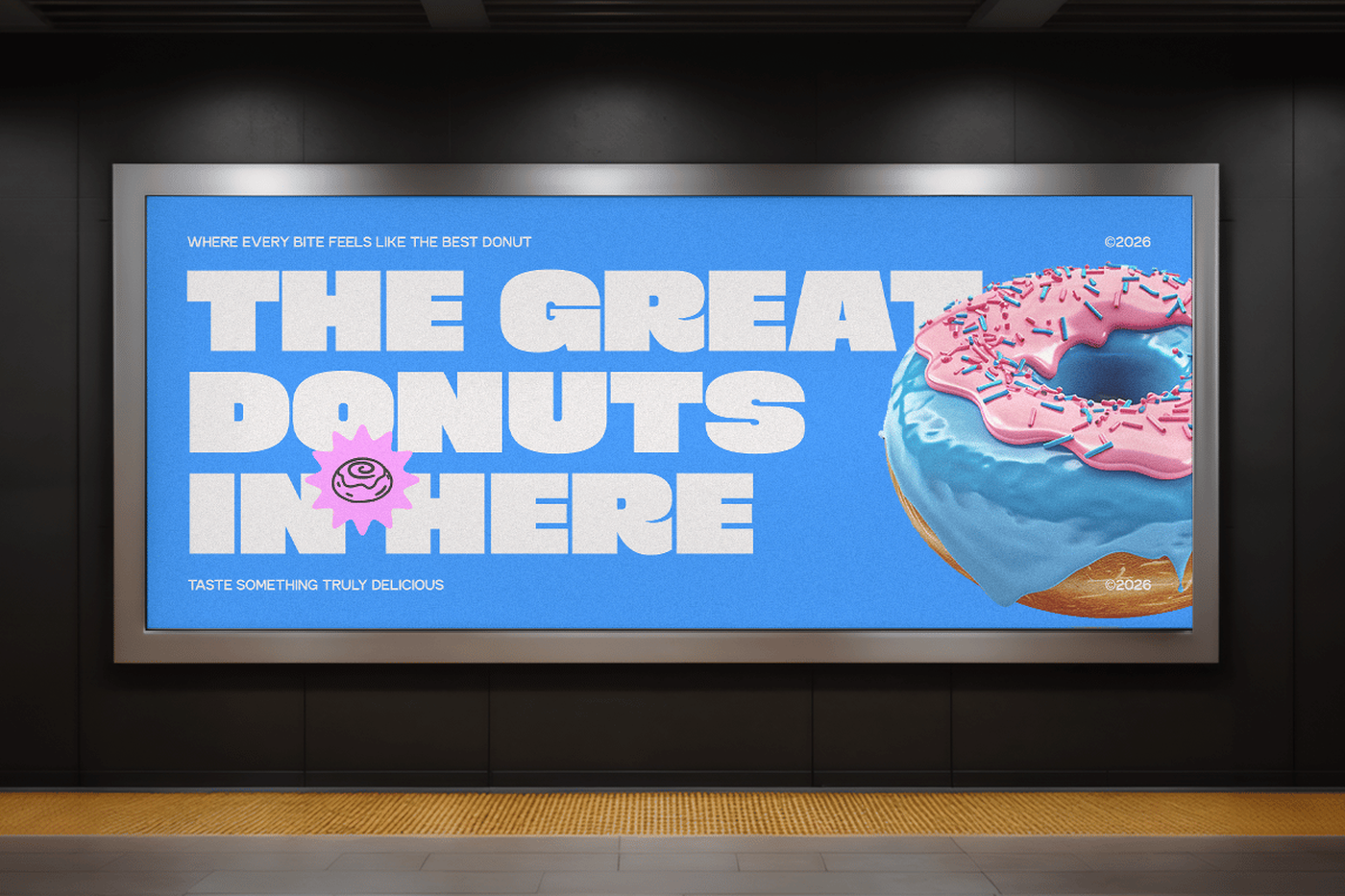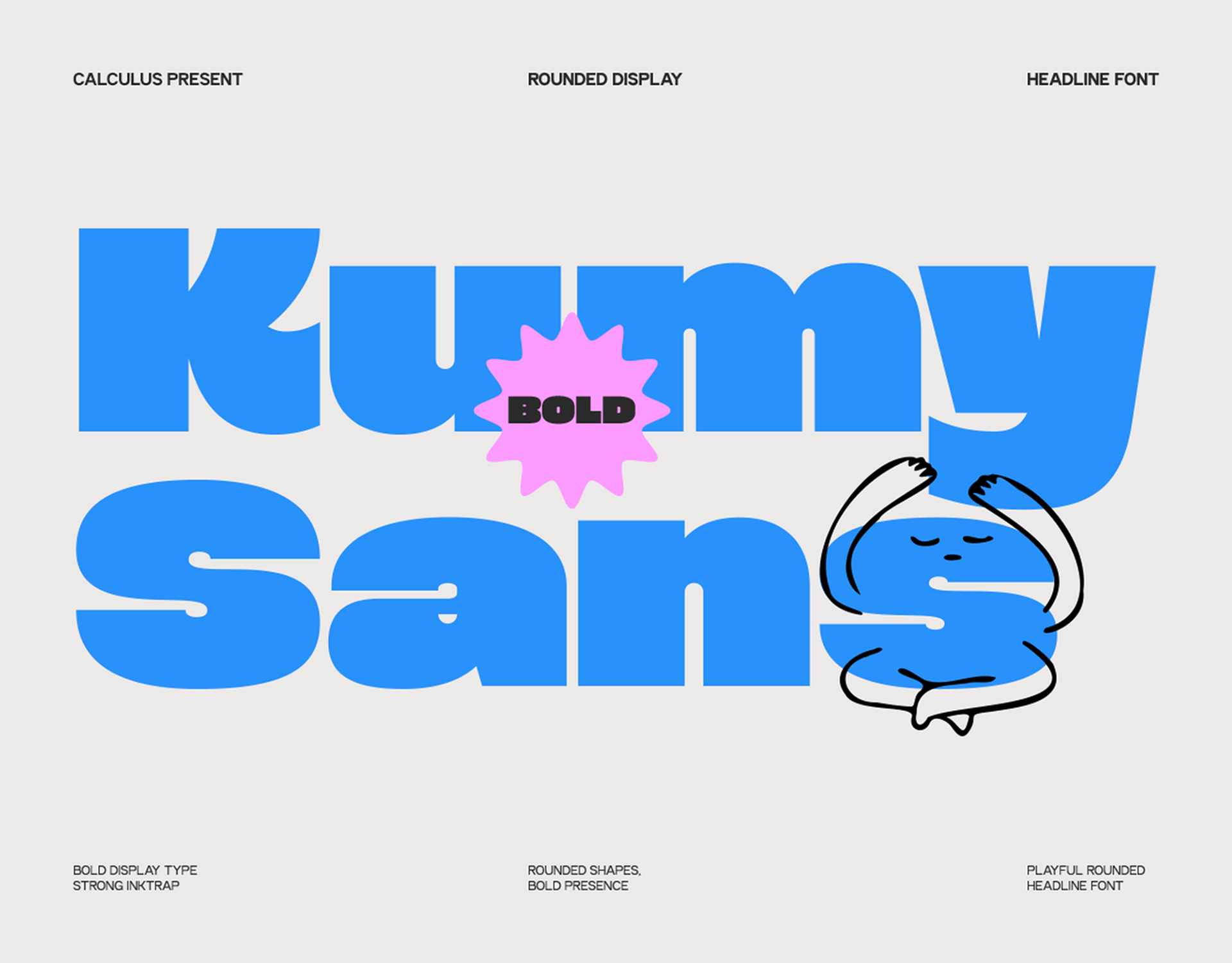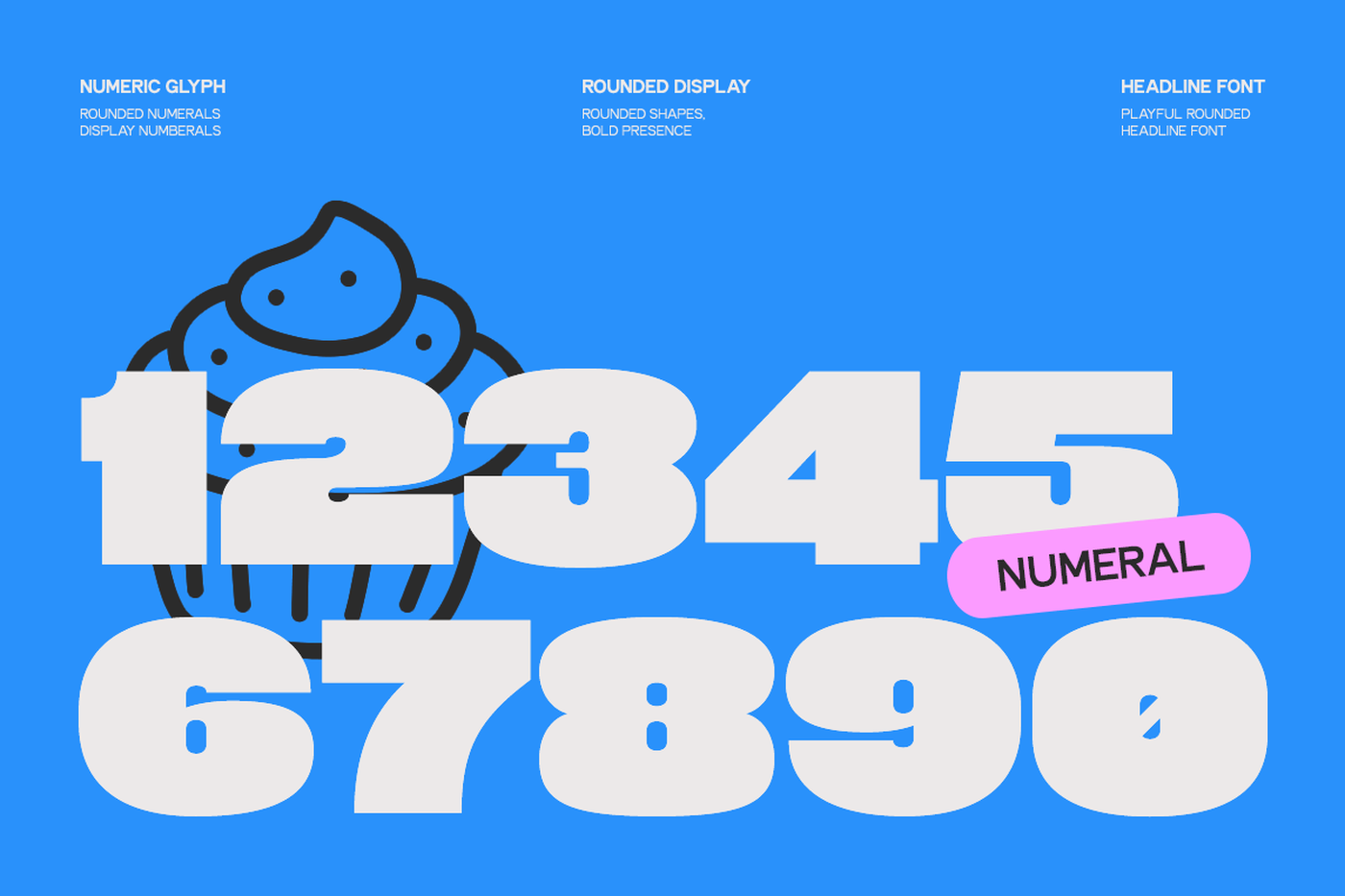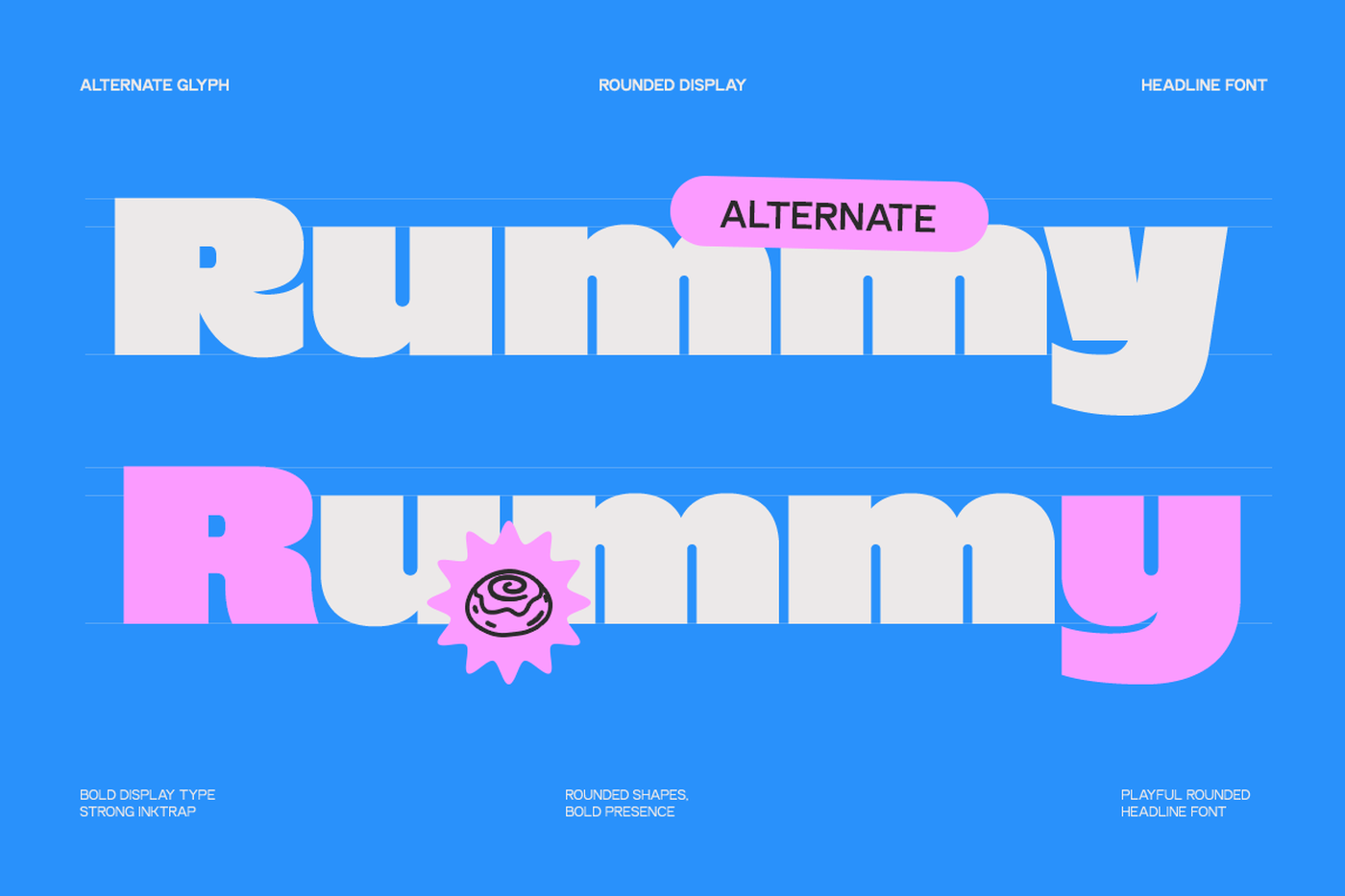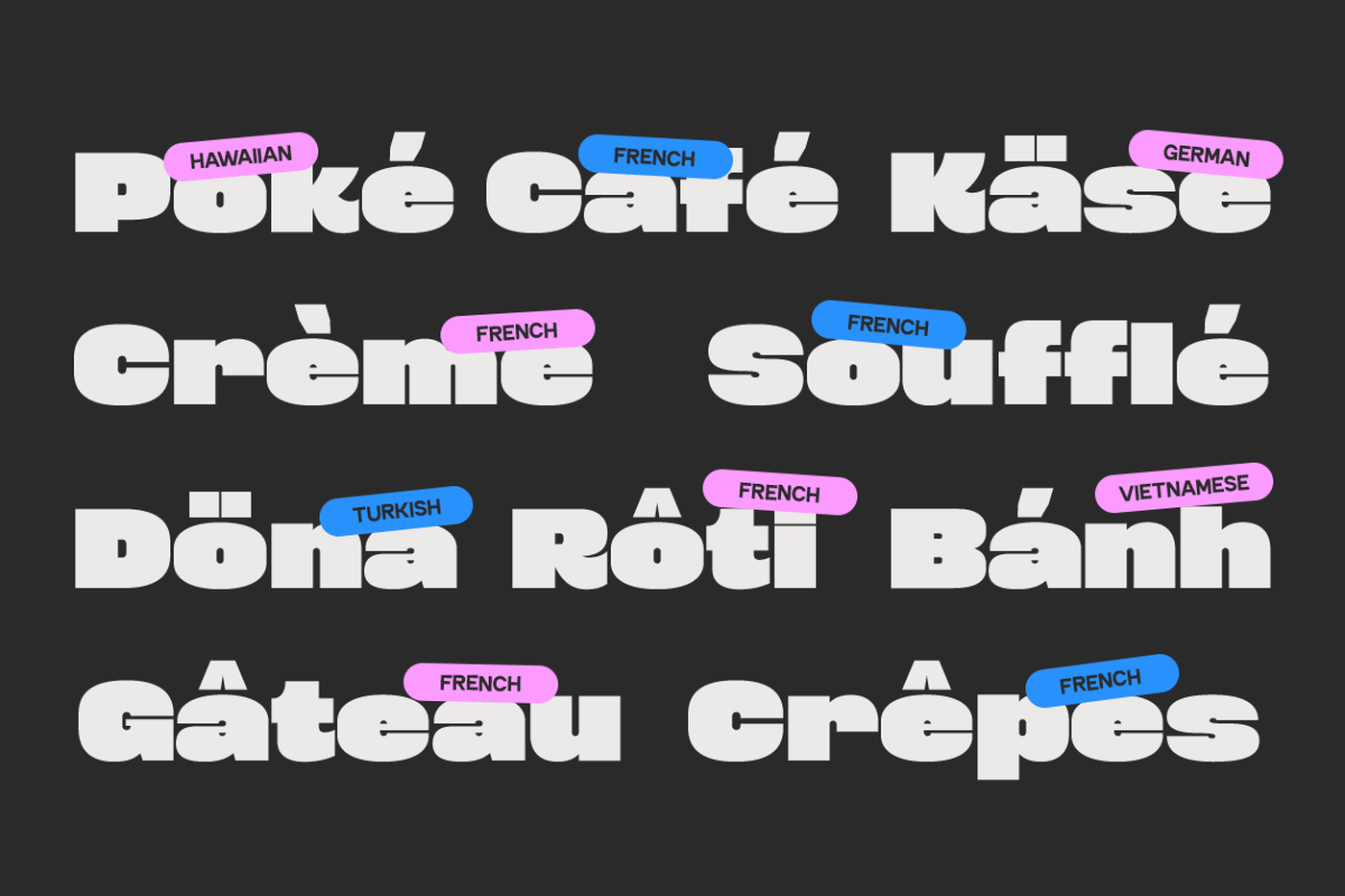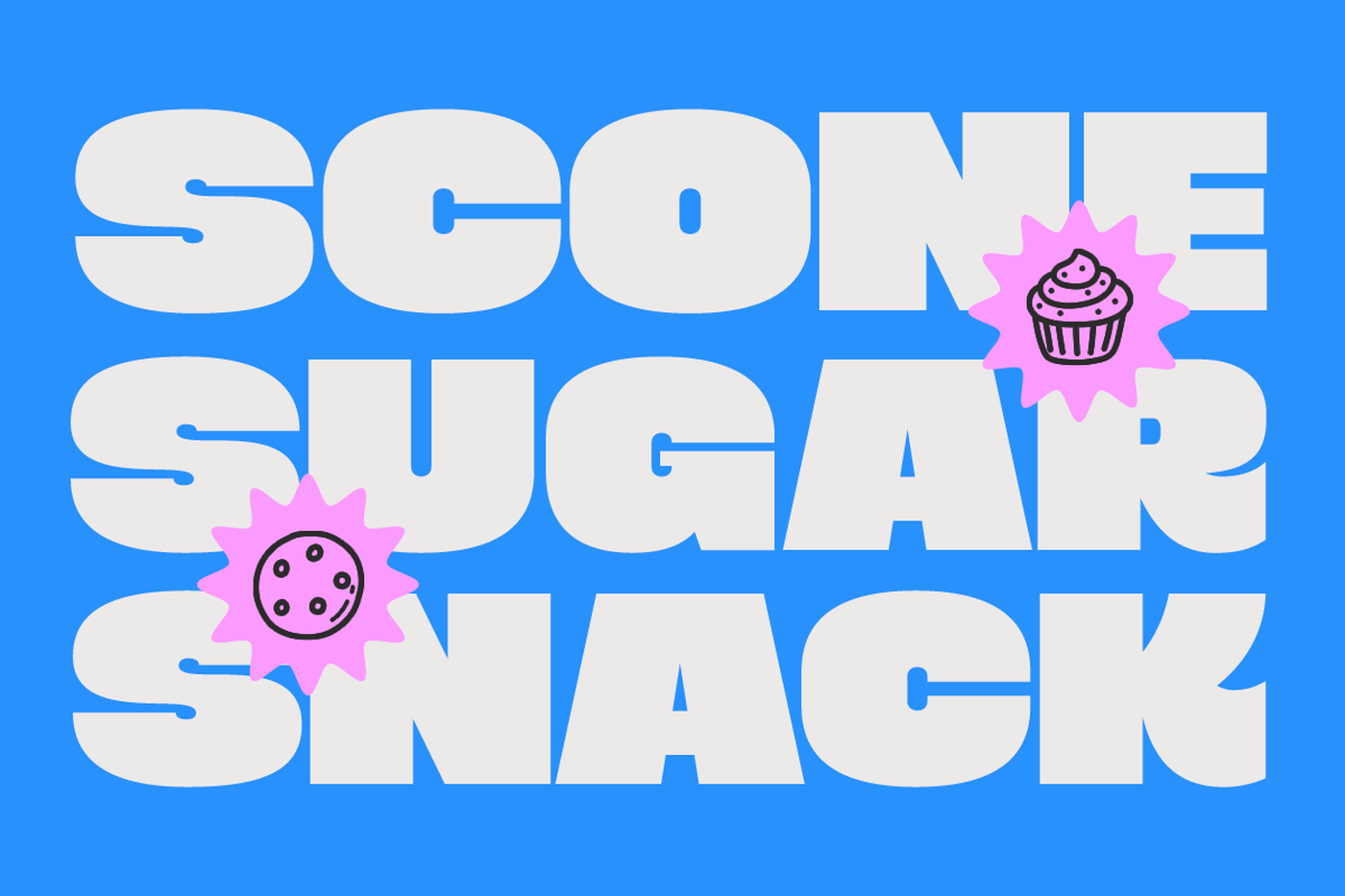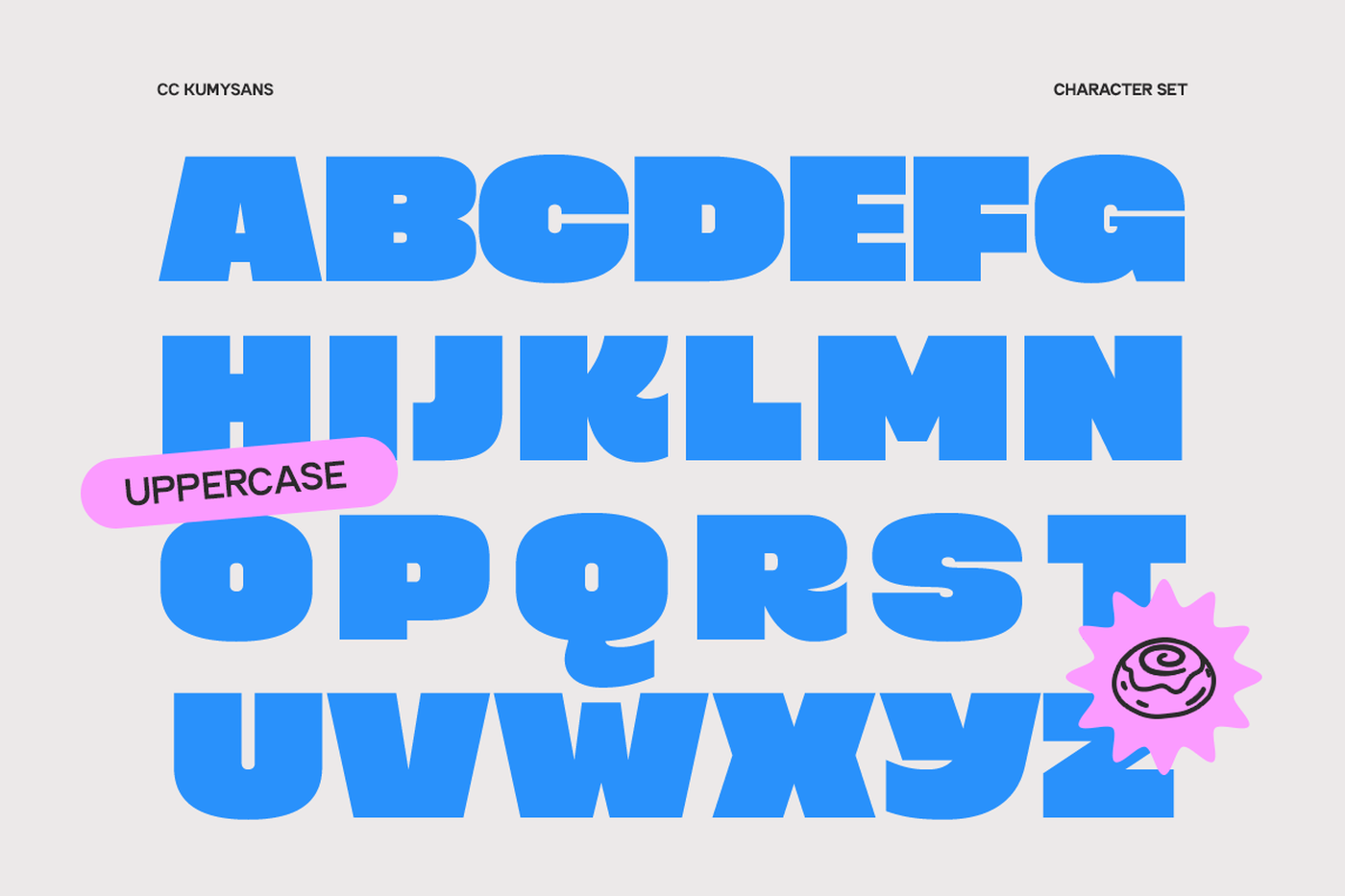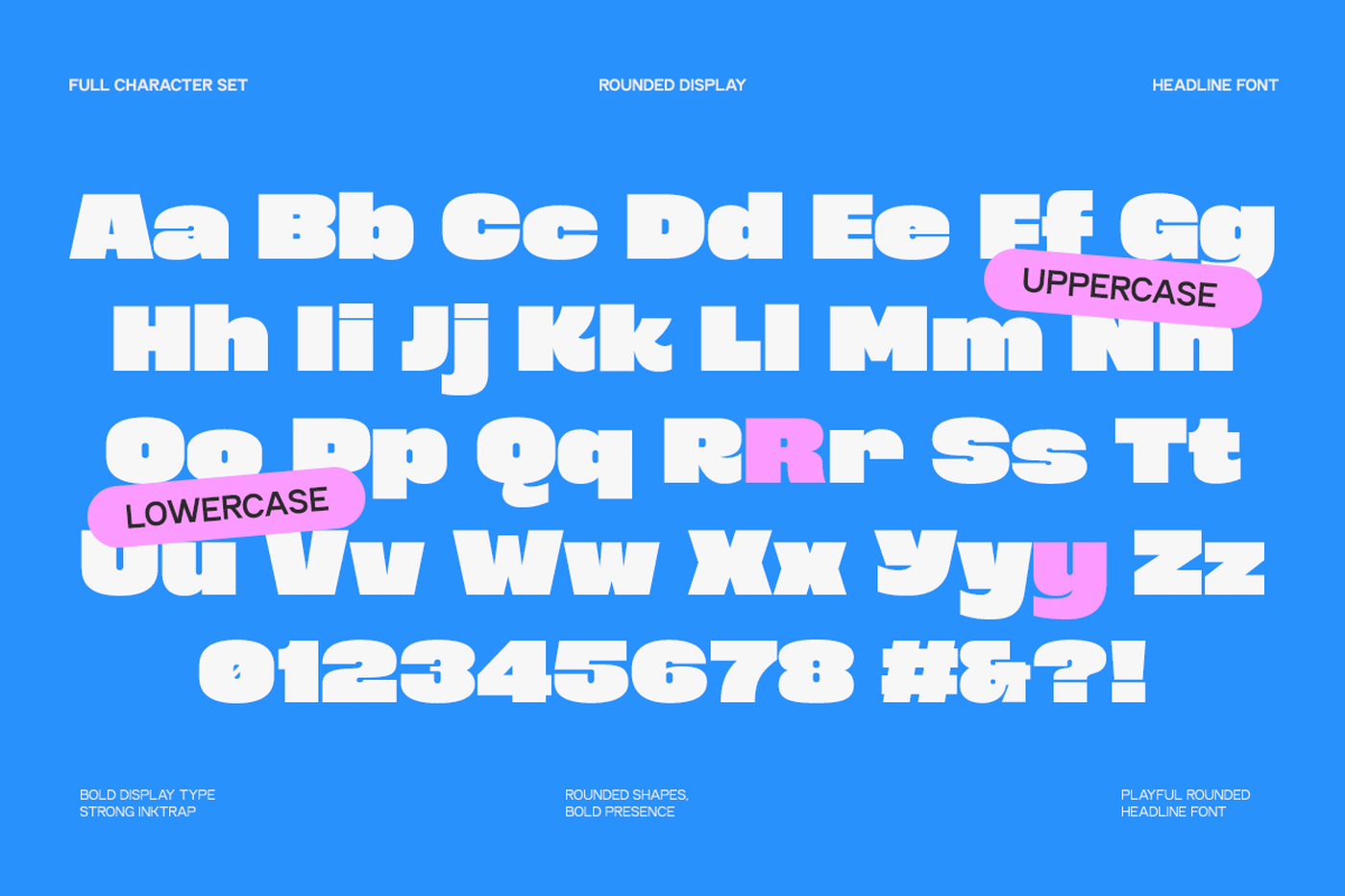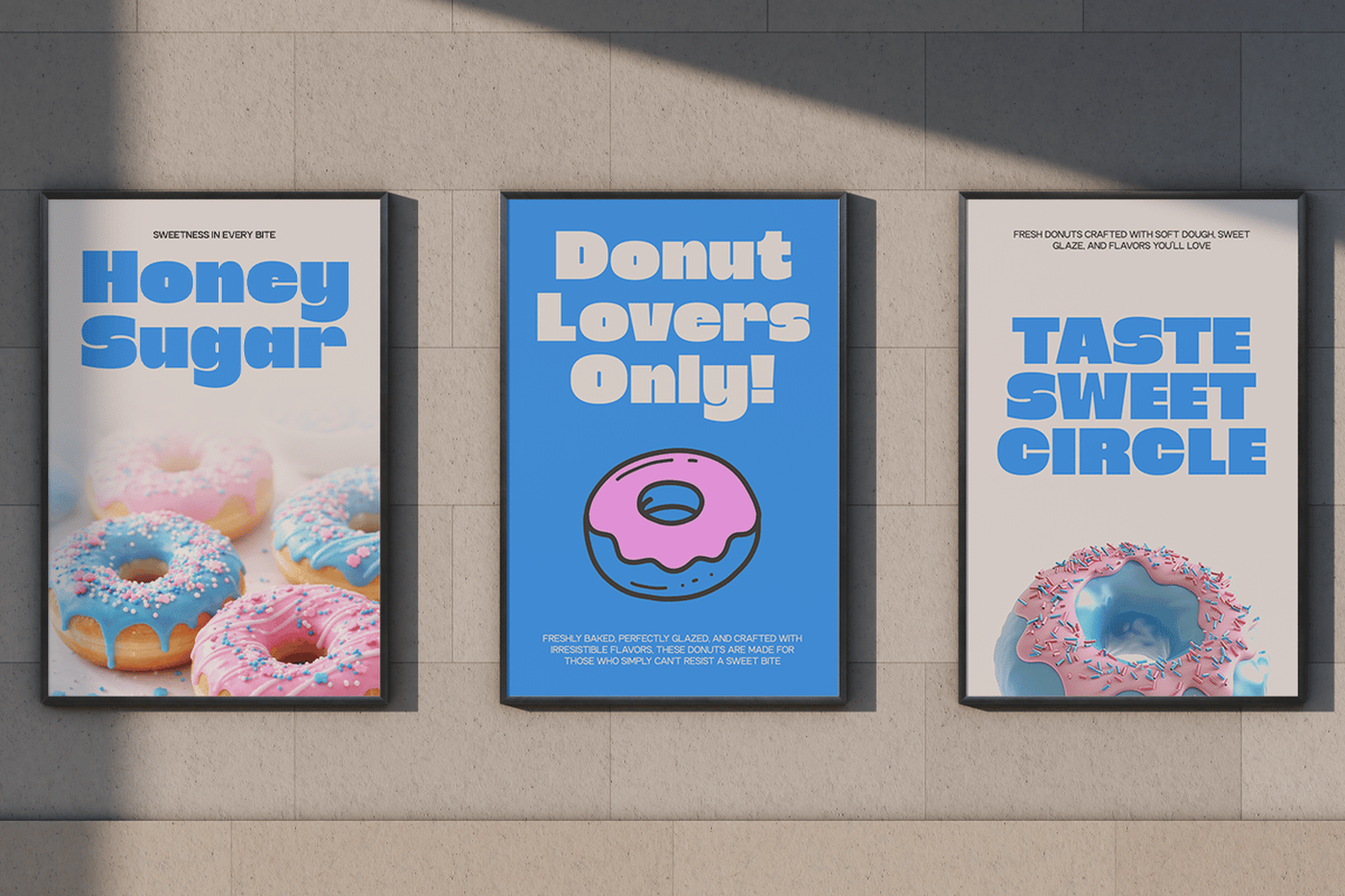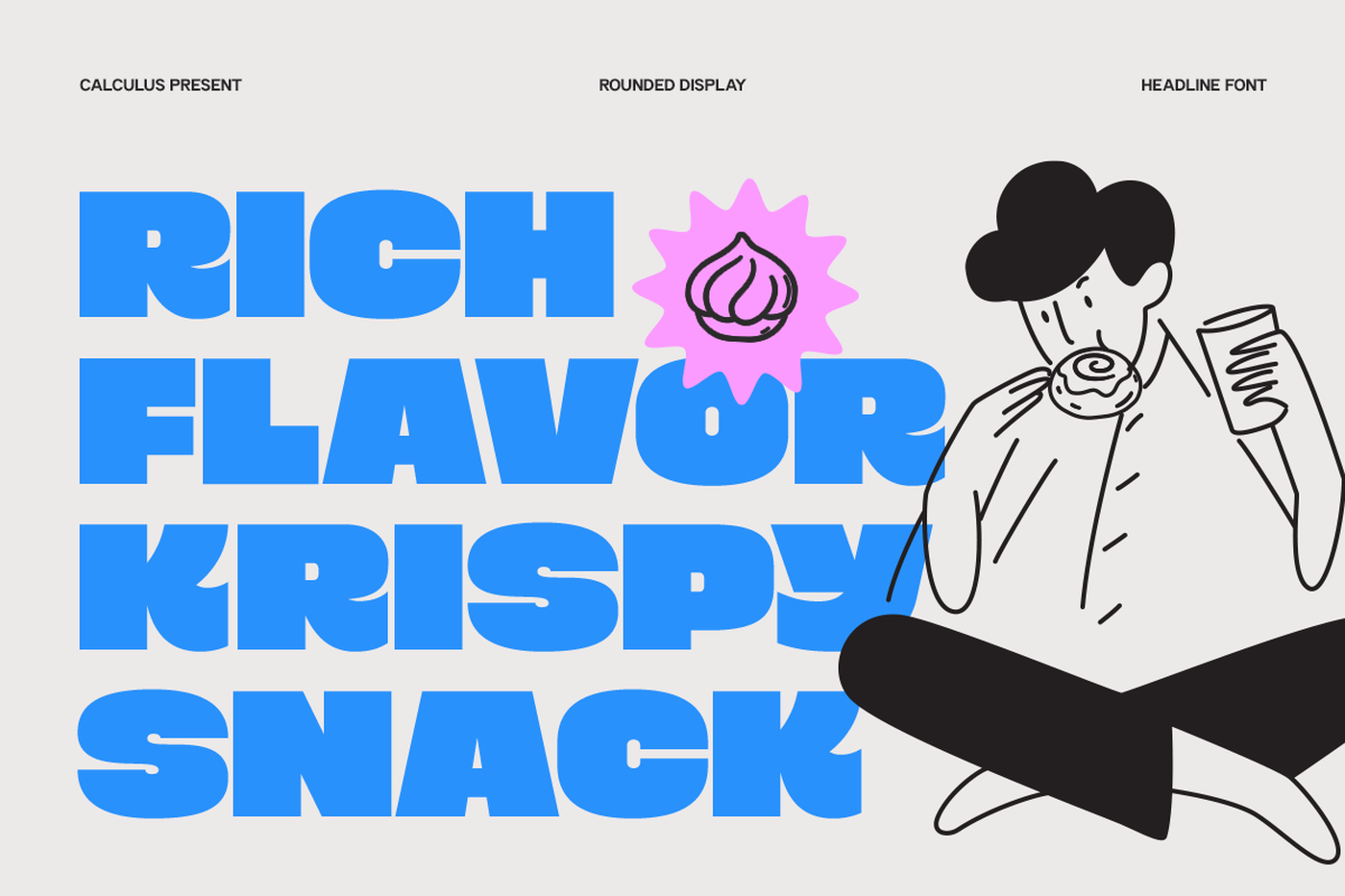
Kumy Sans - Bold Display Sans Font
Kumy is a bold rounded display typeface designed to bring a strong yet playful visual presence. With its soft curves, thick strokes, and friendly structure, Kumy creates a unique balance between confident impact and approachable character. Built with rounded shapes and smooth contours—as clearly seen in its bubbly letterforms—CC Kumy delivers a warm and expressive typographic voice. Its bold construction ensures high visibility, while the playful geometry adds a sense of personality, making it perfect for eye-catching headline designs.
Designer: Calculus Type
Font: Kumy Sans